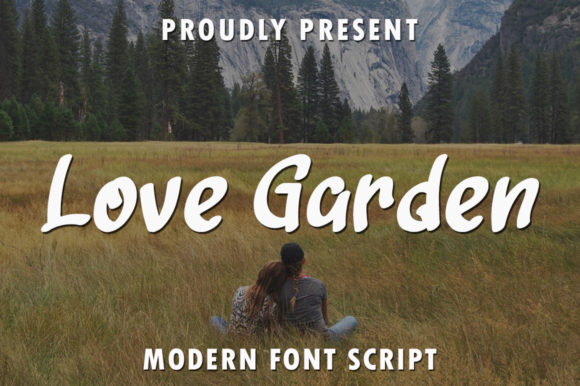
In a world brimming with digital expression, where words dance across screens, a font holds the power to transform the mundane into the captivating. Love Garden Font, a creation of rangkaiaksara, is not just a font; it's an invitation to let your creativity bloom. Step into a world of enchanting script, where every letter is a stroke of elegance, every word a masterpiece.
Love Garden Font, with its graceful curves and sweeping strokes, is a tribute to the art of handwritten love letters. Each character dances across the screen, carrying whispers of romance and affection. With its delicate charm, Love Garden Font adds a touch of tenderness to your digital creations, making them irresistible to the eye.
Unleash your inner artist and let your imagination run wild. Love Garden Font is the perfect companion for quote art, adding a touch of intimacy and warmth to your words. Create stunning posters, heartfelt greeting cards, or captivating social media graphics that resonate with emotion and authenticity.
With Love Garden Font, you'll never be short of inspiration. Its versatility knows no bounds. Craft eye-catching logos that exude elegance and sophistication. Design wedding invitations that capture the essence of love and commitment. Create beautiful branding materials that leave a lasting impression on your audience.
Love Garden Font is crafted with the utmost care and attention to detail. Its smooth lines and flawless curves ensure that every letter appears crisp and refined, even when scaled to large sizes. This font is a testament to the artistry of rangkaiaksara, a designer who understands the power of typography to elevate your creations.
Don't let your words get lost in a sea of ordinary fonts. Embrace the beauty of Love Garden Font and watch as your designs blossom into works of art. Let your creativity soar, and let Love Garden Font guide you on a journey of self-expression and visual delight.